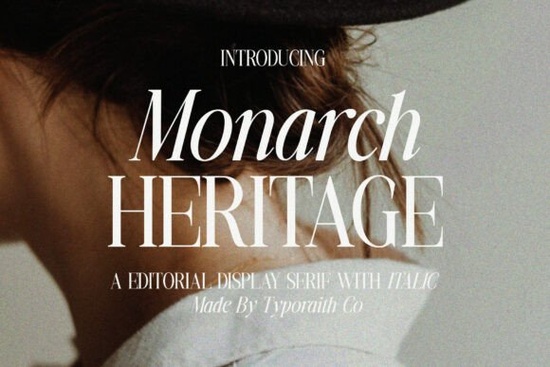
If you're looking for a typeface that feels both elegant and modern, Monarch Heritage Font deserves a close look. This editorial display serif combines refined contrast with graceful curves, giving it a look that works for luxury branding, magazine layouts, wedding invitations, and fashion-forward posters. But is it the right fit for your next project? Let's walk through what makes it stand out and where you might use it.
What makes Monarch Heritage different from other serif fonts?
Many serif fonts lean either traditional or contemporary, but Monarch Heritage tries to balance both. It's not trying to be a revival of an old typeface; instead, it feels fresh while still carrying that classic editorial charm. The regular weight is crisp and readable, while the italic style adds a fluid, sophisticated touch that works beautifully for pull quotes or accent text.
Designers often mention the contrast between thick and thin strokes. In Monarch Heritage, that contrast is present but not extreme, so it remains legible at smaller sizes while still looking dramatic when scaled up. If you've used fonts like Georgia Praline, you'll notice a similar attention to detail, though Monarch Heritage has a slightly more modern silhouette.
Is Monarch Heritage good for print-on-demand products?
Print-on-demand sellers constantly juggle readability with aesthetics. Since Monarch Heritage is a display serif, it's best suited for short text: T‑shirt quotes, mug sayings, tote bag logos, or notebook covers. The italic version is especially nice for wedding-themed items where you want a handwritten feel without the inconsistency of a script font.
I've tested it on mockups for a boutique candle label pairing the regular style with a clean sans serif for product details worked really well. The font's elegance adds perceived value without making the design feel crowded.
Where Monarch Heritage shines in POD:
- Wedding collections – invitation suites, place cards, signage
- Fashion accessories – scarf tags, jewelry cards, hat embroidery
- Home decor – throw pillow phrases, wall art quotes
- Stationery sets – note cards, envelope liners, stickers
How does Monarch Heritage perform on social media graphics?
Yes, but with caution. For Instagram posts or Pinterest pins, using the italic style as a headline over a soft background image can instantly communicate sophistication. Just avoid using it for long captions those thin strokes can get lost on mobile screens. Instead, pair it with a simple sans serif like Montserrat or Lato for body text.
A good rule: use Monarch Heritage for the hero element – the main title or the word you want people to remember.
Can small business owners use Monarch Heritage for branding?
Absolutely, provided you keep the application focused. If your brand aims for a high-end, editorial look (think boutique hotels, premium bakeries, or curated gift shops), this font can anchor your visual identity. The two styles regular and italic give you enough flexibility for a logo wordmark (regular) and a tagline (italic).
For a complete branding toolkit, you'd still need a secondary font for body copy, but as a display face, Monarch Heritage carries its weight. I've seen it used effectively on packaging for organic skincare: the italic version paired with a muted color palette gave a clean, luxurious impression.
How to pair Monarch Heritage with other fonts
Because it has strong personality, keep pairings simple. Good companions include:
- Geometric sans serifs – Futura, Century Gothic for contrast
- Neutral serifs – Georgia, Source Serif Pro for longer text
- Handwritten scripts – only if the script is very clean, for accent
If you're experimenting, I'd suggest trying Monarch Heritage with a subtle textured background the font's refined curves pop nicely against paper or linen textures.
What are the technical details I should know?
Monarch Heritage comes in two styles: Regular and Italic. While that's not a huge family, it's enough for most editorial or branding projects. The font includes standard punctuation, numerals, and basic ligatures. It's available for personal and commercial use through Creative Fabrica, which is important for anyone selling products.
Quick checklist before you download
- ☐ Do you have a display font need (headlines, logos, short quotes)?
- ☐ Is your project targeting a luxury or elegant audience?
- ☐ Do you need a font that works both in print and on screen?
- ☐ Are you comfortable working with just two styles (regular + italic)?
If you checked most boxes, Monarch Heritage is worth adding to your toolkit. For a more casual serif option, look at Georgia Praline as an alternative. Start by testing the italic on a single project you might find it becomes your go‑to for all things elegant.